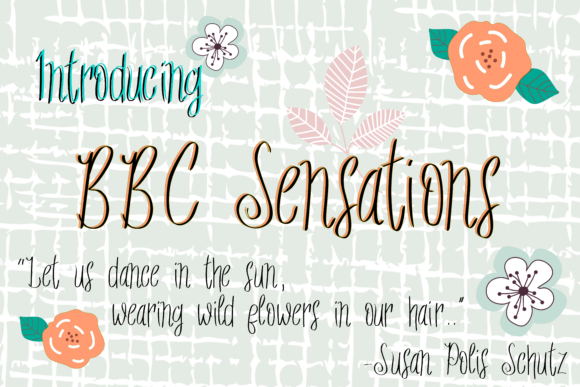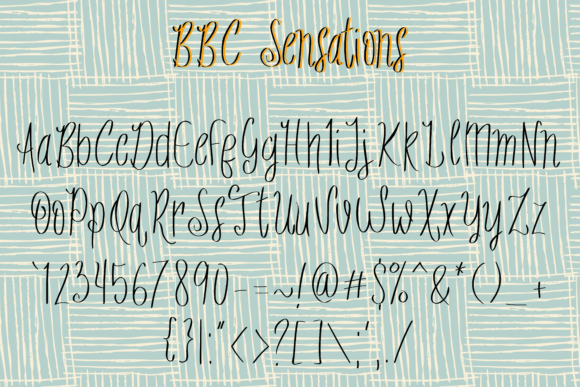
HomeScript FontsBBC Sensations Font Script Fonts BBC Sensations Font FacebookXPinterestWhatsApp BBC Sensations Font Poster 2 About BBC Sensations Font Introducing BBC Sensations is a beautiful handwritten san-serif font. Get inspired by its old-timey charm. DOWNLOAD NOW People also explored Mingle Font Meklae Font Sweet Home Font Crafty Yelow Font Frizzy Bella Font Plants Font Farmhouse Font Christmas Doodles Font Vacation Font 419 0 TagsBBC Sensations Font Previous articleZaskia FontNext articleBBC Playland Font LEAVE A REPLY Cancel reply Comment: Please enter your comment! Name:* Please enter your name here Email:* You have entered an incorrect email address! Please enter your email address here Website: Save my name, email, and website in this browser for the next time I comment. Personal Use Free Micahel Personal Use Free Read more about this font Kilsonburg Personal Use Free Read more about this font Eric”s Personal Use Free Read more about this font Bashira Personal Use Free Read more about this font BLOG Free Fonts Risk: Why Free Fonts Can Be Dangerous for Designers Free Fonts Risk: Why Free Fonts Can Be Dangerous for Designers Using free fonts is a common practice in web and graphic design. However, the... 5 Fonts That Will Dominate Design Trends in 2026 Where to Buy American Fonts Online in 2024 Using Fonts in Digital Marketing: Tips to Strengthen Your Brand Identity